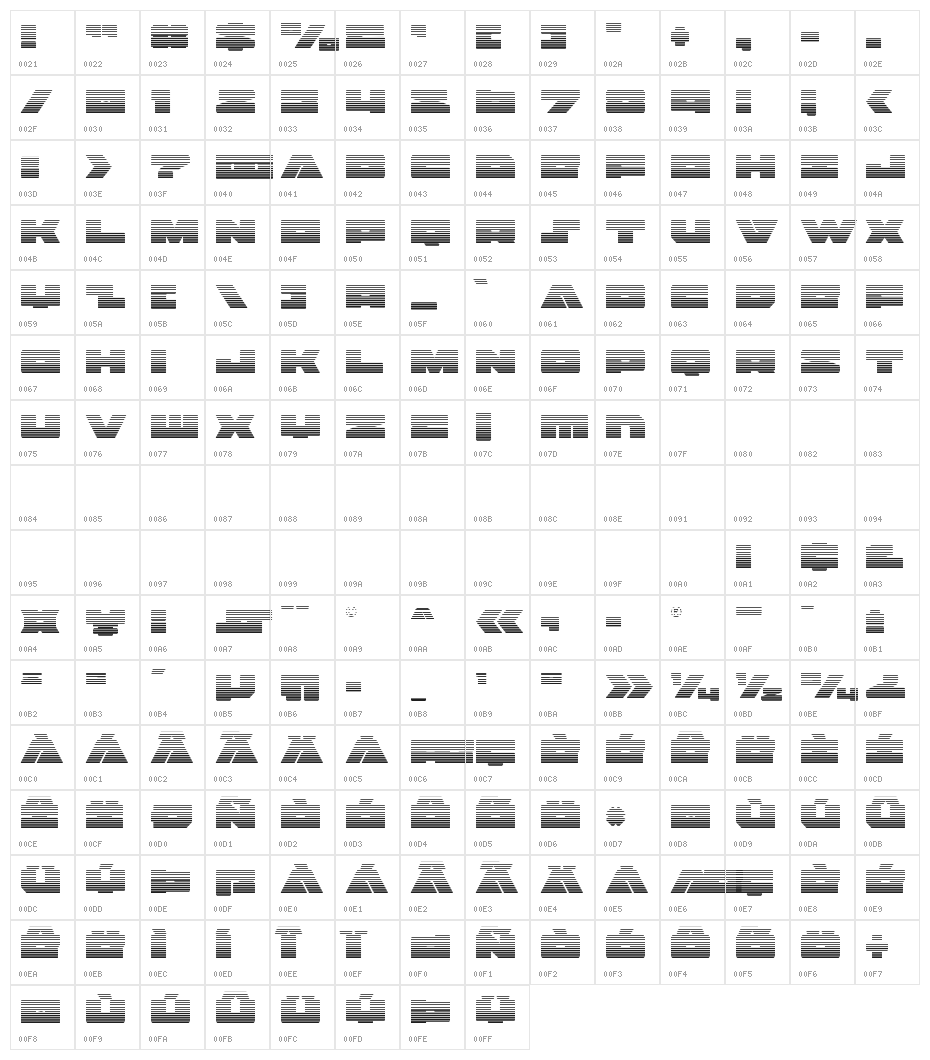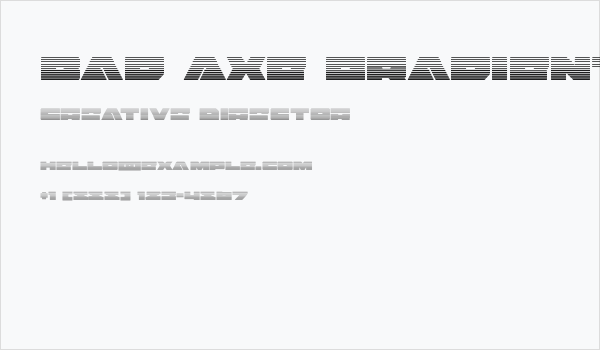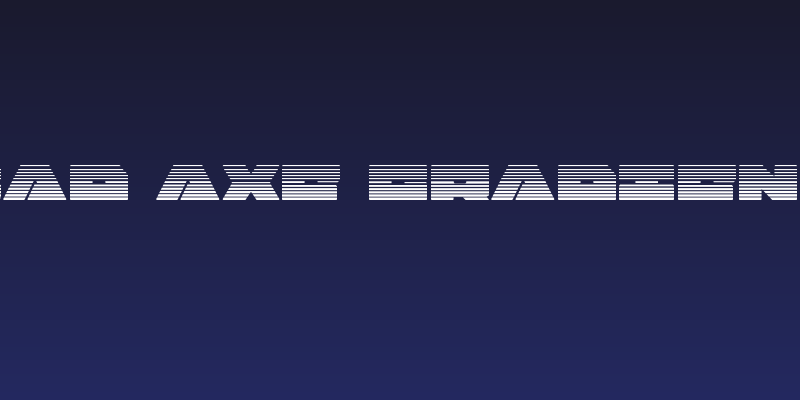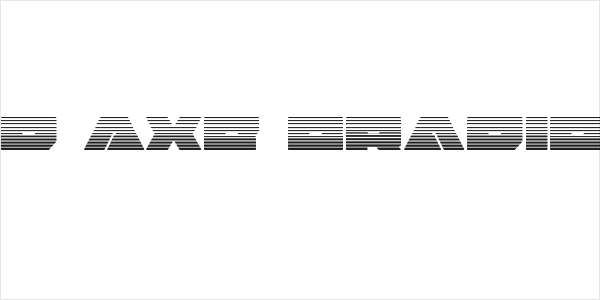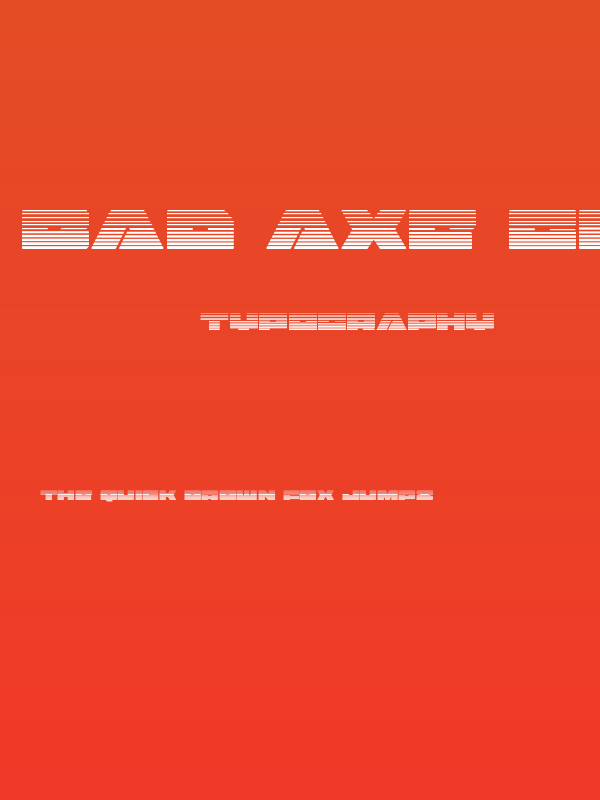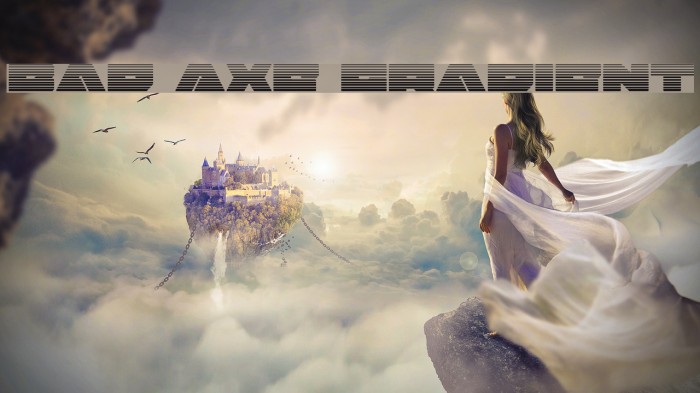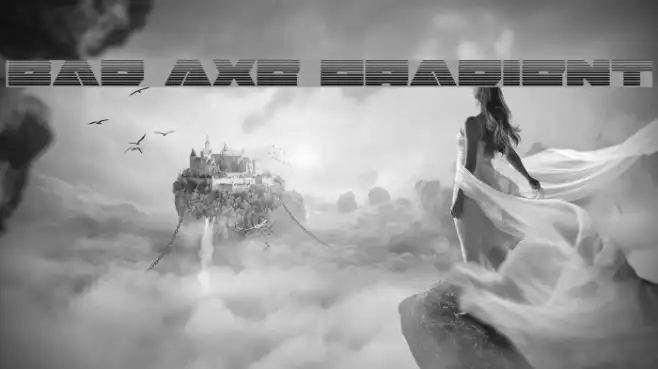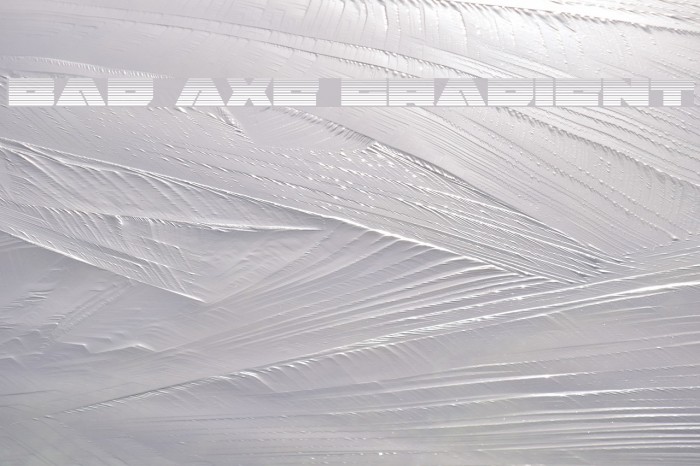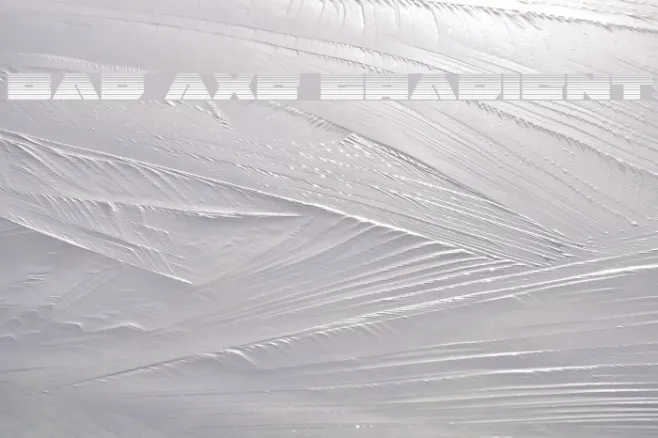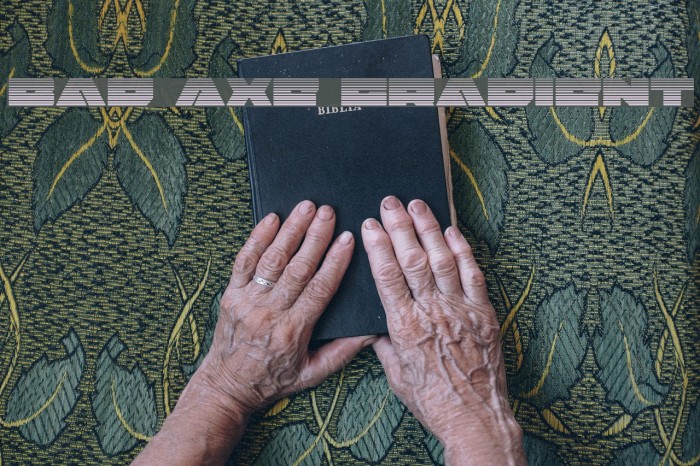
Bad Axe Gradient Font
Bad Axe Gradient Description
This font features a unique design with horizontal lines creating a gradient effect across each character. The letters are bold and wide, giving a strong and impactful appearance. The use of parallel lines adds a sense of movement and modernity, making it stand out in any design. The uppercase and lowercase letters maintain a consistent style, while the numbers and special characters follow the same pattern, ensuring uniformity. This font is ideal for projects that require a futuristic or tech-inspired look, with its distinctive linear gradient adding depth and texture.
| Proposed Projects | Ideal for tech-themed designs, futuristic branding, posters, and digital artwork. |